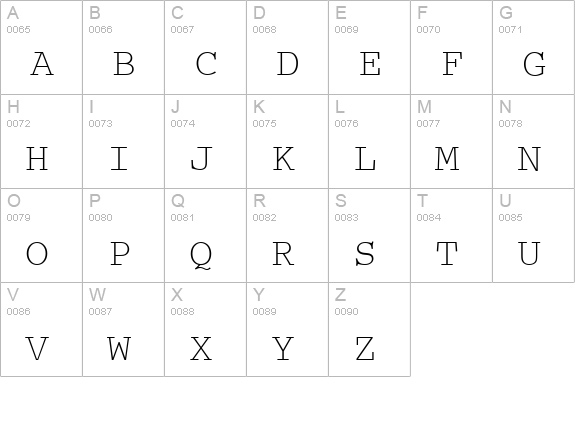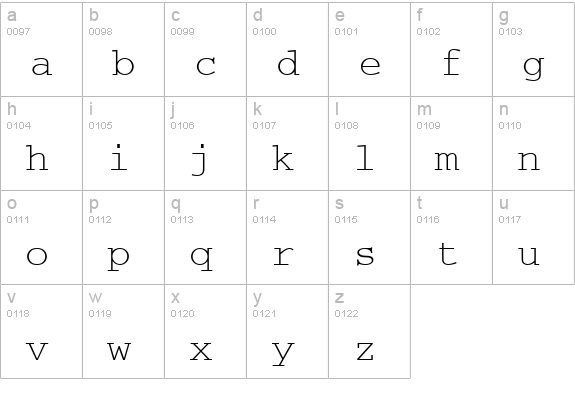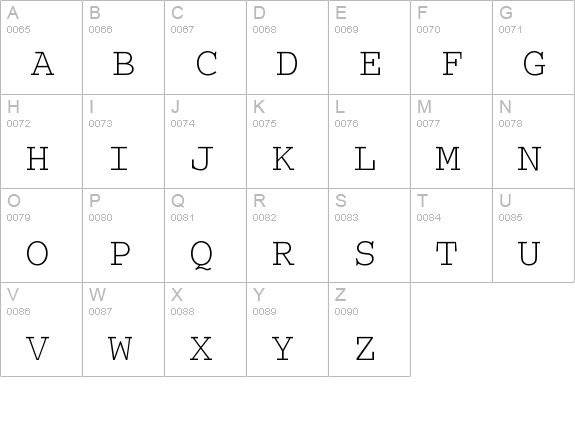
CourierM Font Details
CourierM font is a classic and versatile typeface that combines the traditional look of a typewriter font with modern digital clarity. Its clean lines and simple design make it ideal for a wide range of projects, from formal documents to casual correspondence. The CourierM font is free to download at FontsMarket.com, making it easily accessible to anyone in need of a reliable and professional-looking typeface. With its timeless appeal and wide range of applications, CourierM is a must-have for any designer or writer looking to make a bold statement with their text.